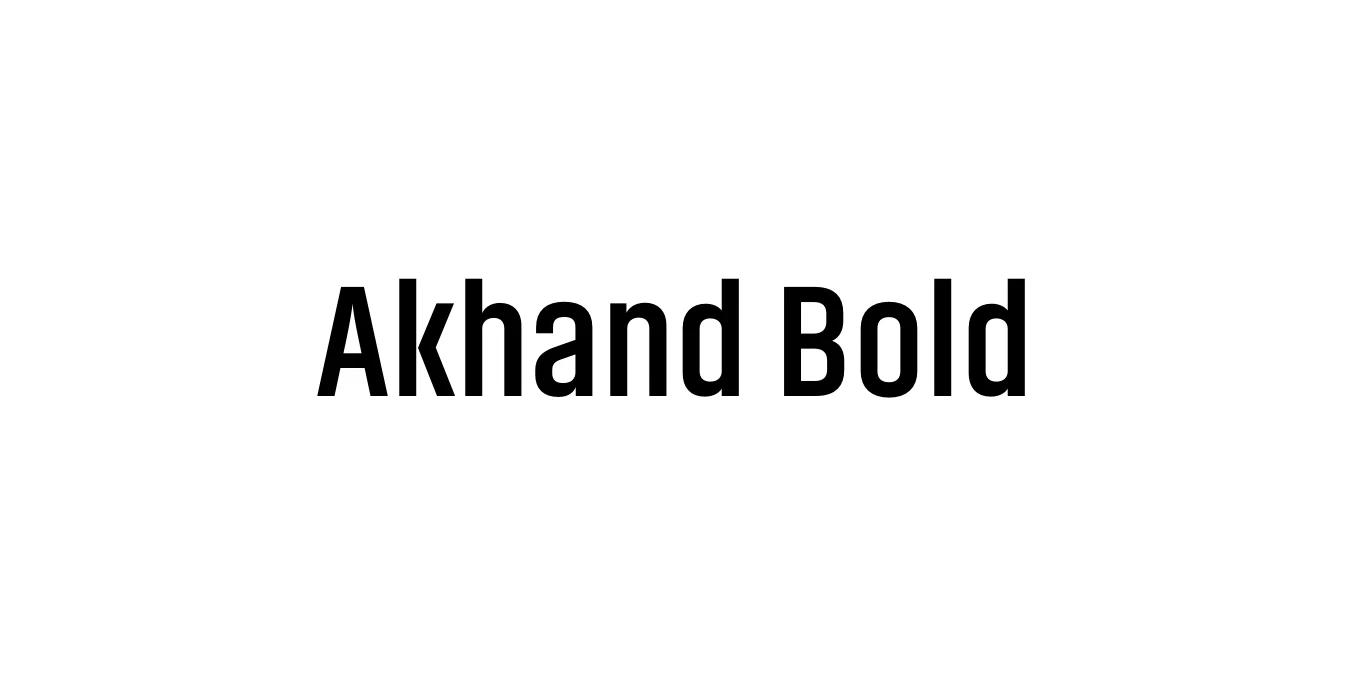
Akhand Bold
Designed by Satya Rajpurohit
Akhand Bold is a standout weight from the Akhand family, a modular sans-serif typeface designed by Satya Rajpurohit for the Indian Type Foundry (ITF). The typeface is characterized by its condensed proportions, flat-sided curves, and minimal stroke contrast, which together create a powerful and compact visual presence. It was originally engineered to harmonize multiple Indian scripts with the Latin alphabet, resulting in a versatile and globally applicable aesthetic.
The design philosophy of Akhand Bold focuses on geometric simplicity and maximum space efficiency. Because of its sturdy structure and high x-height, it maintains excellent legibility even when used in demanding display environments. It has become a popular choice for designers seeking a modern, industrial look that conveys strength and reliability across both digital and print mediums.
Akhand Bold Best Uses
Perfect for high-impact titles in magazines and posters where space is limited.
Ideal for creating strong, authoritative corporate identities and logo marks.
Excellent for navigation menus and button text in mobile application interfaces.
Highly effective for bold promotional banners and social media graphics.